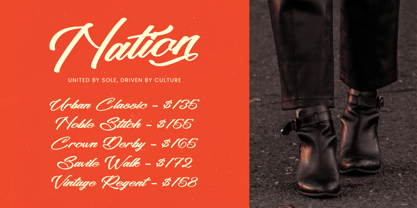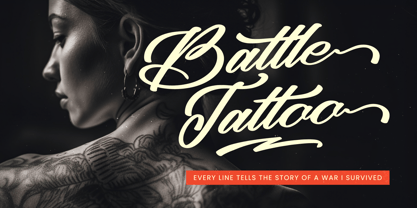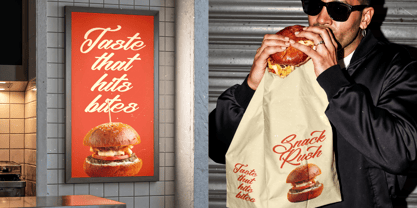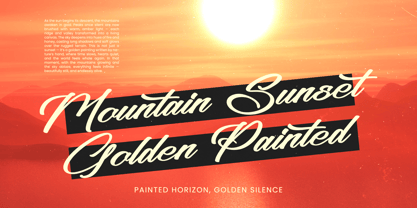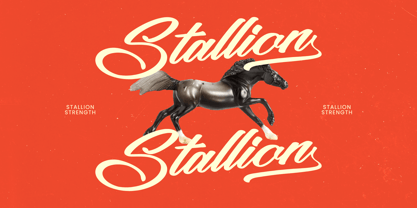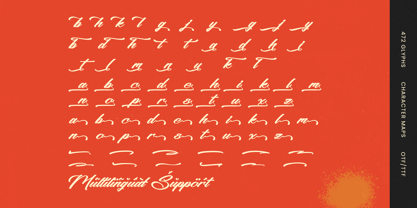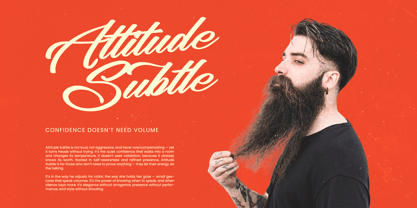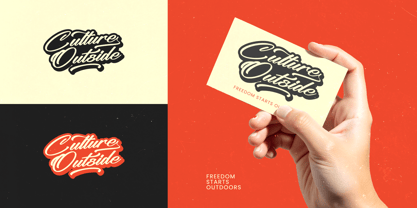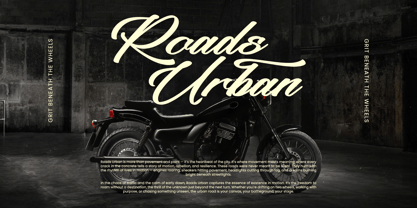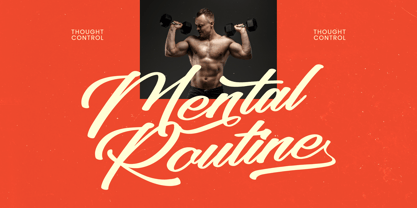
Santos Kulture
von Stylishtype Studio
Die Schriftfamilie Santos Kulture wurde von Heru Utama Putra entworfen und von Stylishtype Studio veröffentlicht. Santos Kulture enthält 2 Stile und Familienpaketoptionen.
Santos Kulture - Modern Calligraphy Font , from Stylishtype, Suitable for any projects such as: logos, branding projects, homeware designs, product packaging, mugs, quotes, posters, shopping bags, t-shirts, book covers, name card, invitation cards, greeting cards, label, photography, watermark, special events, and all your other luxury and beautiful projects that need a Luxury Script taste.